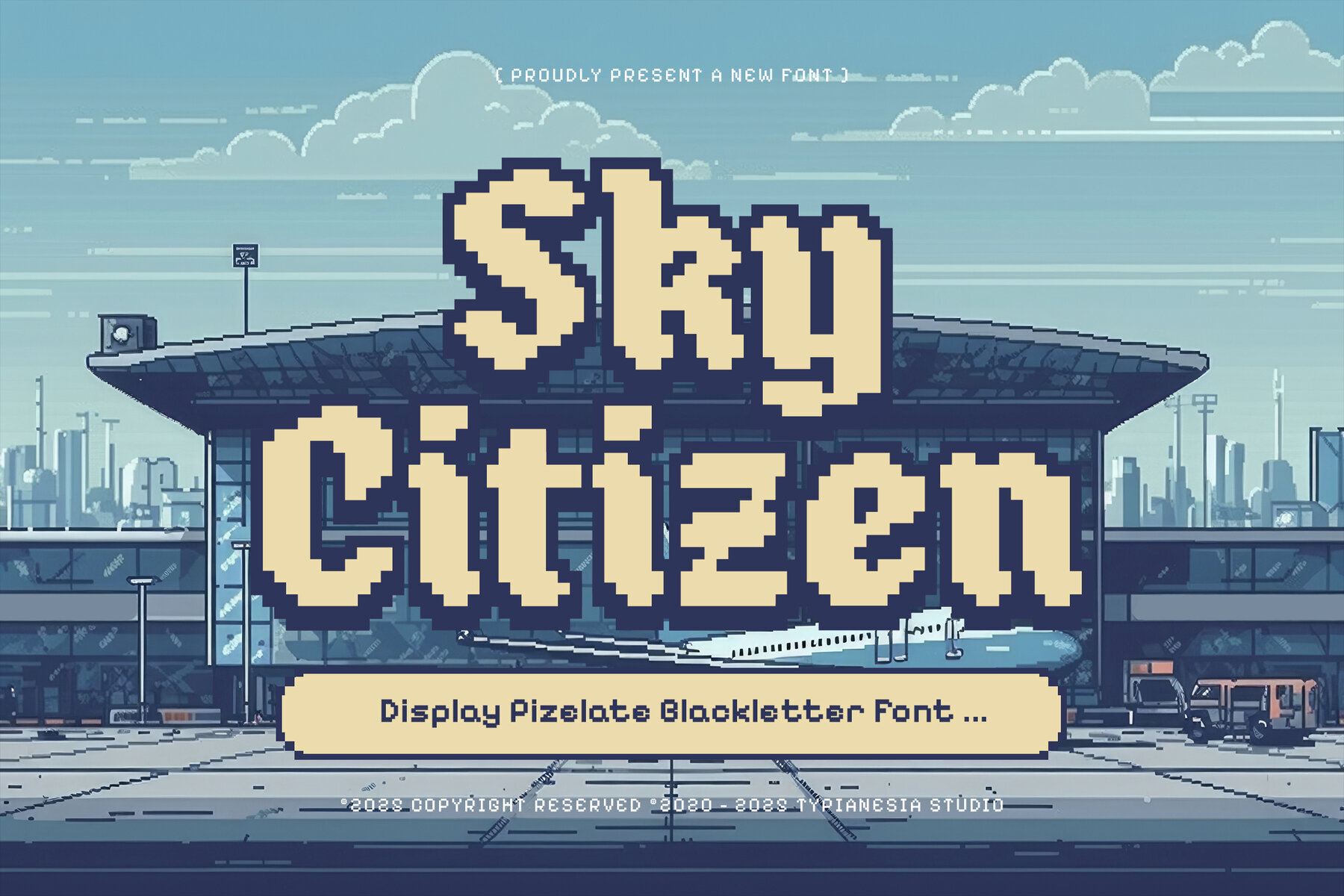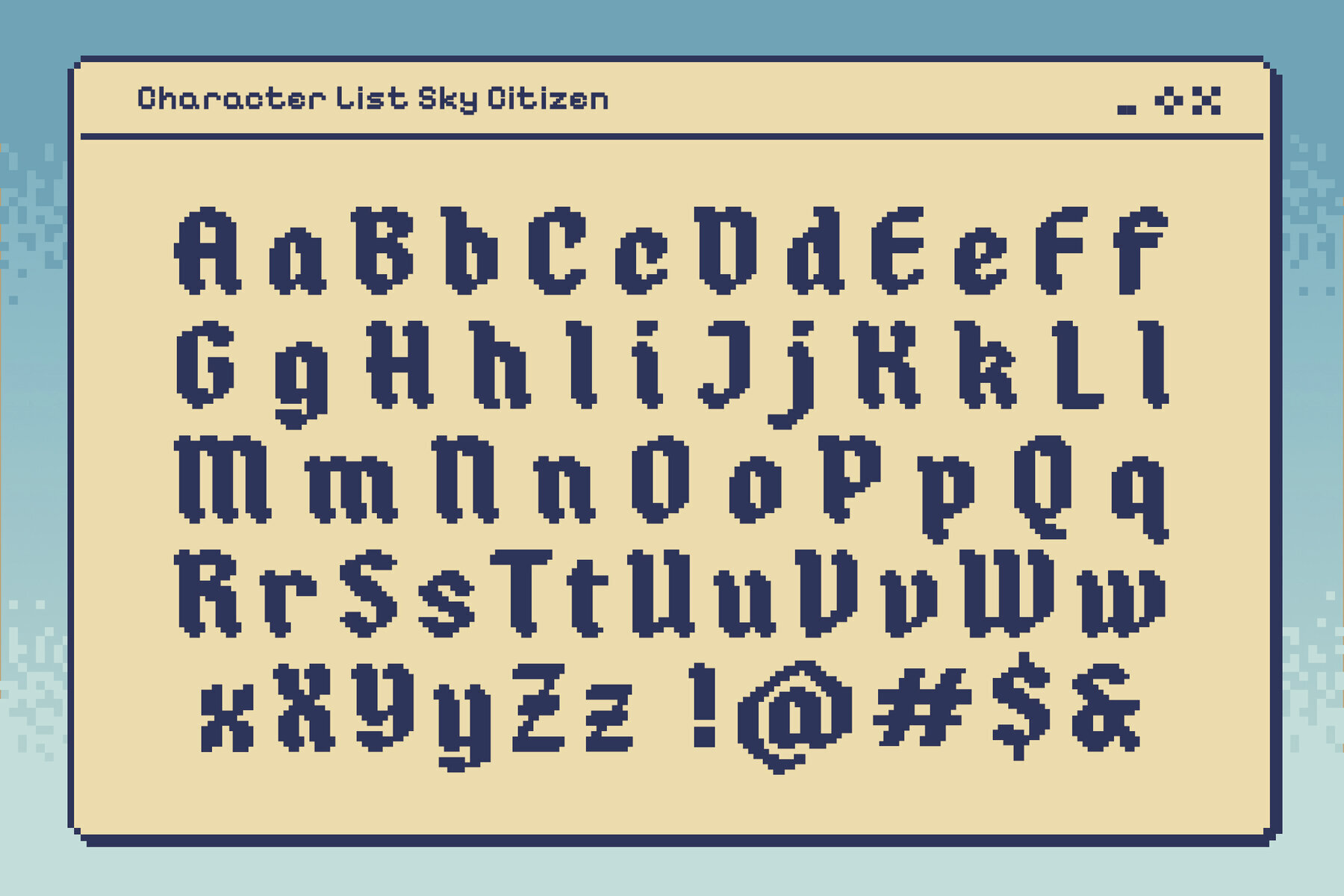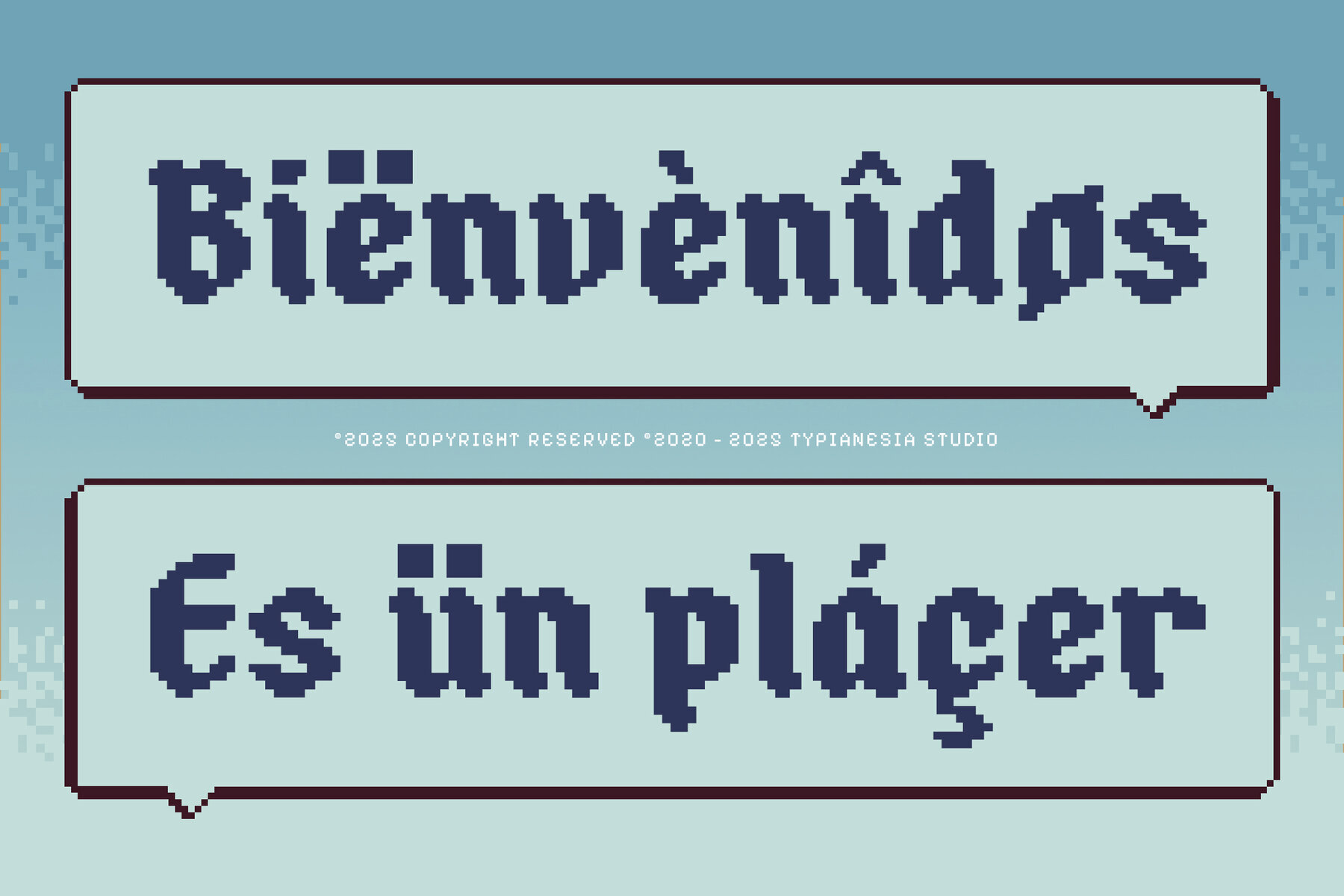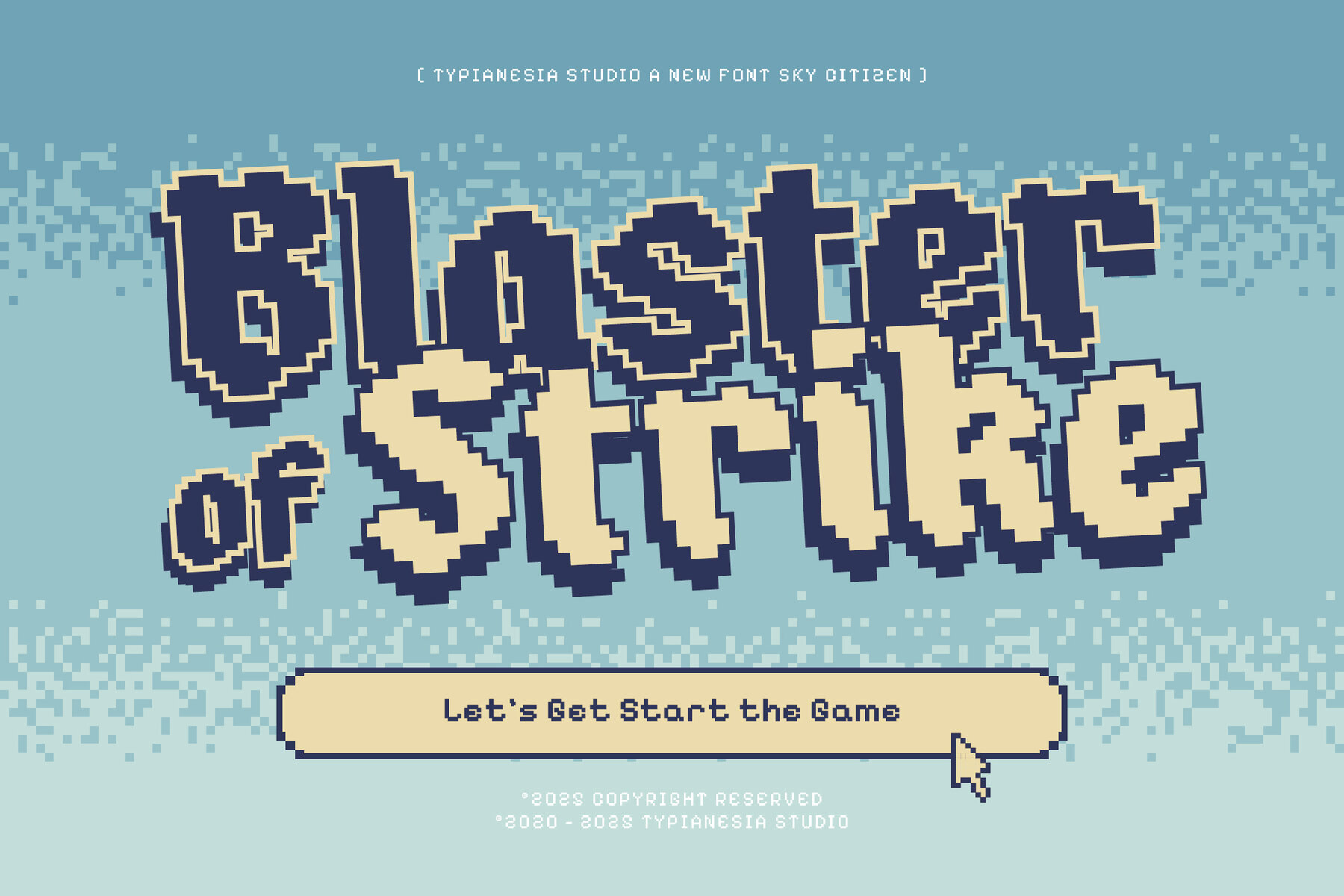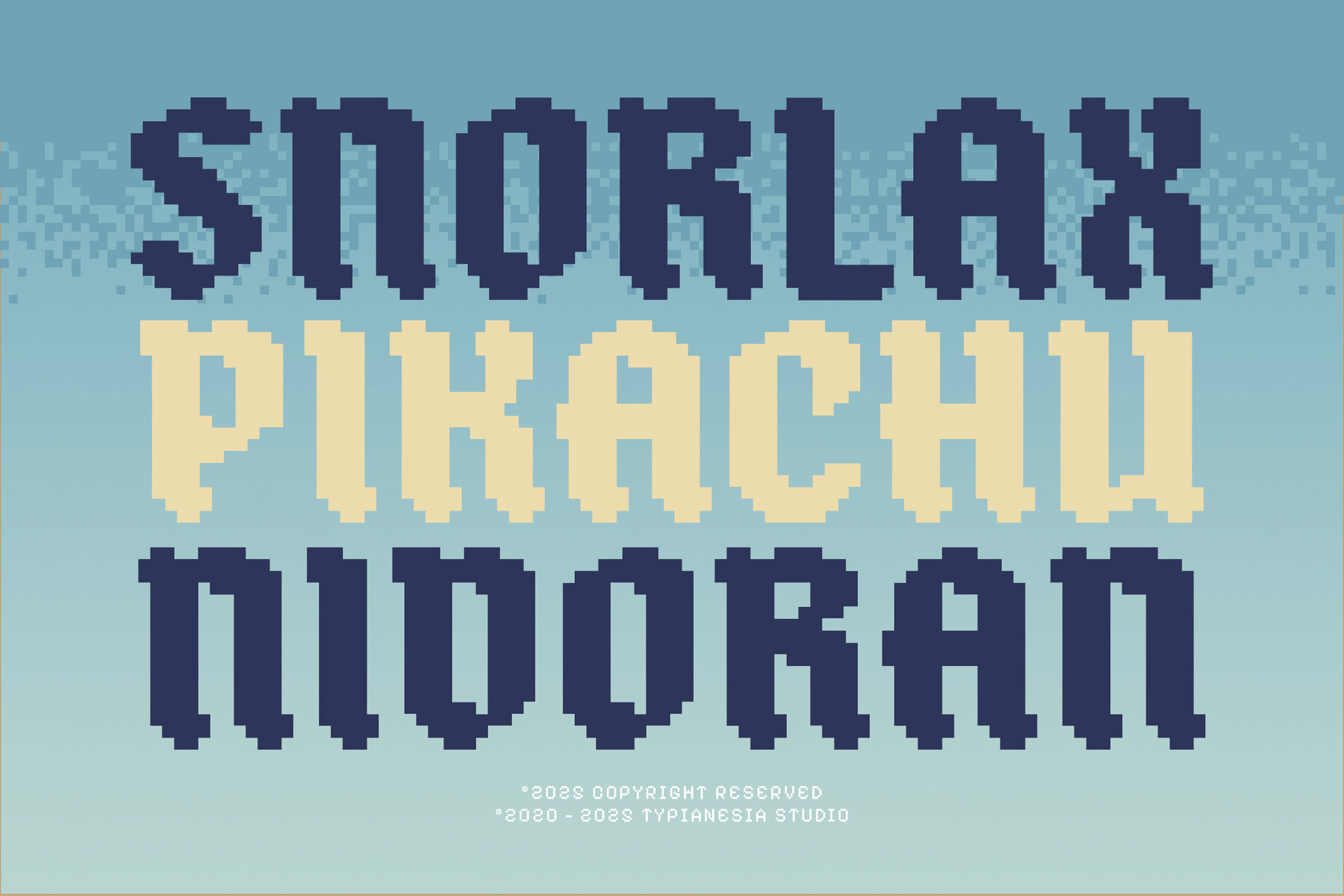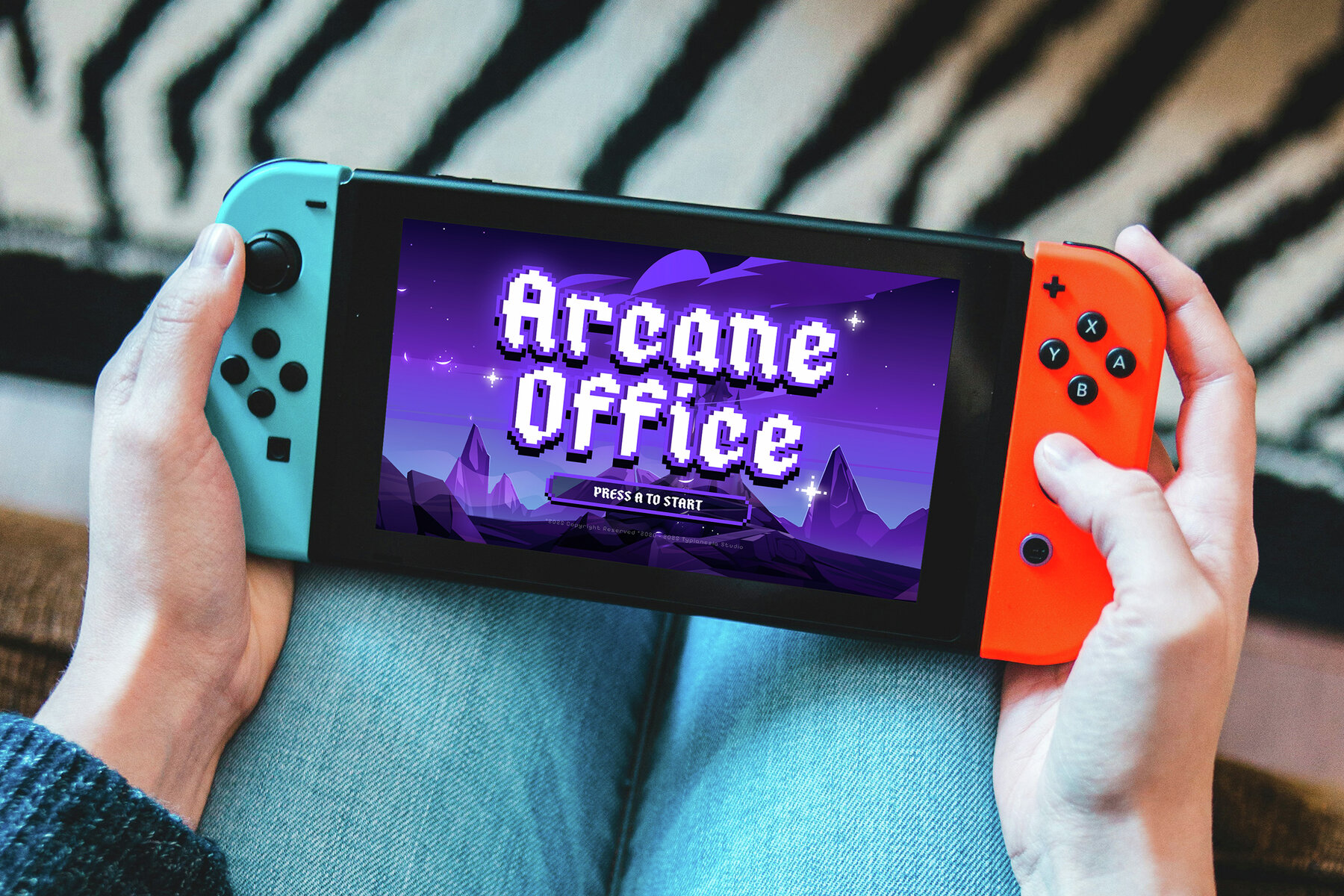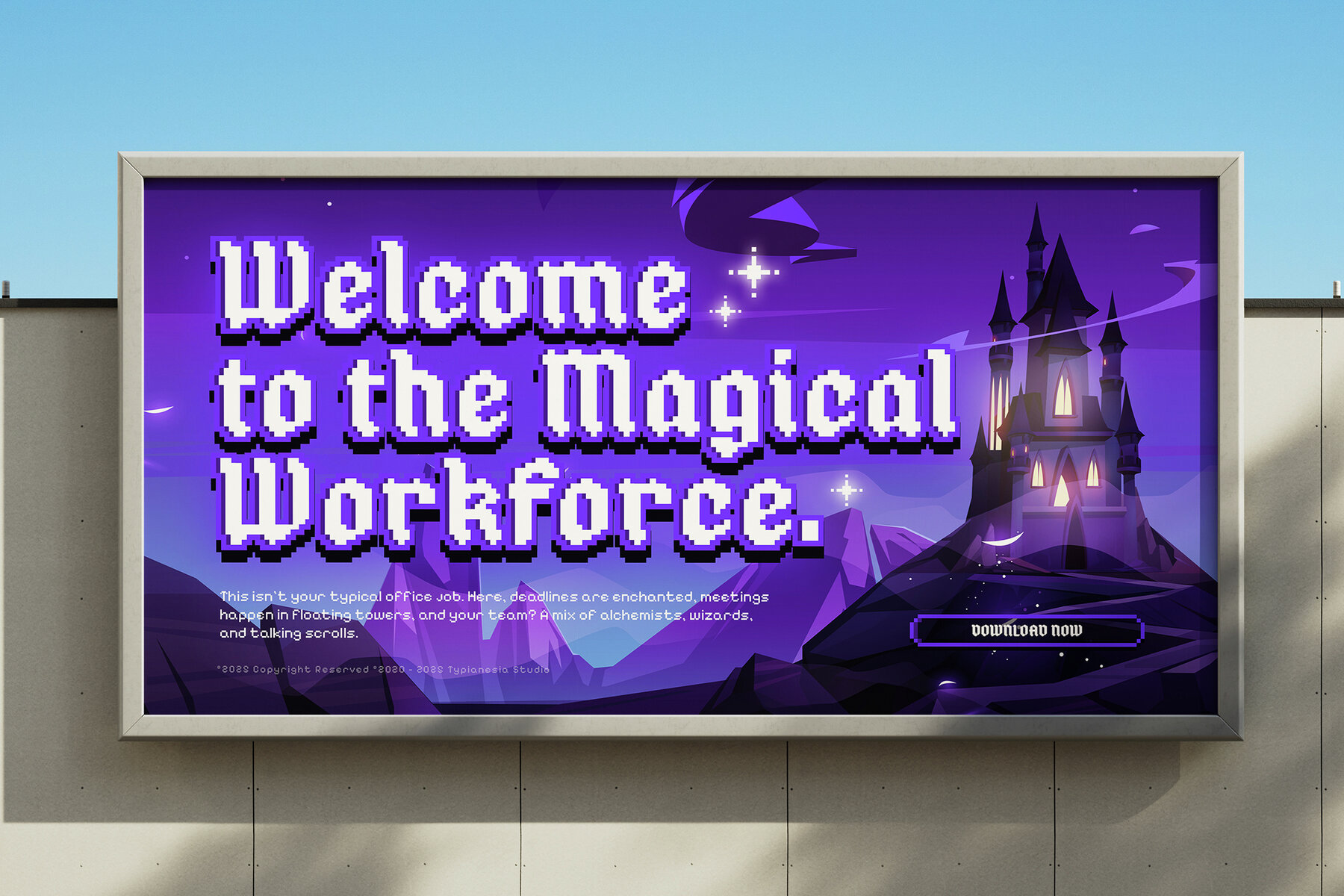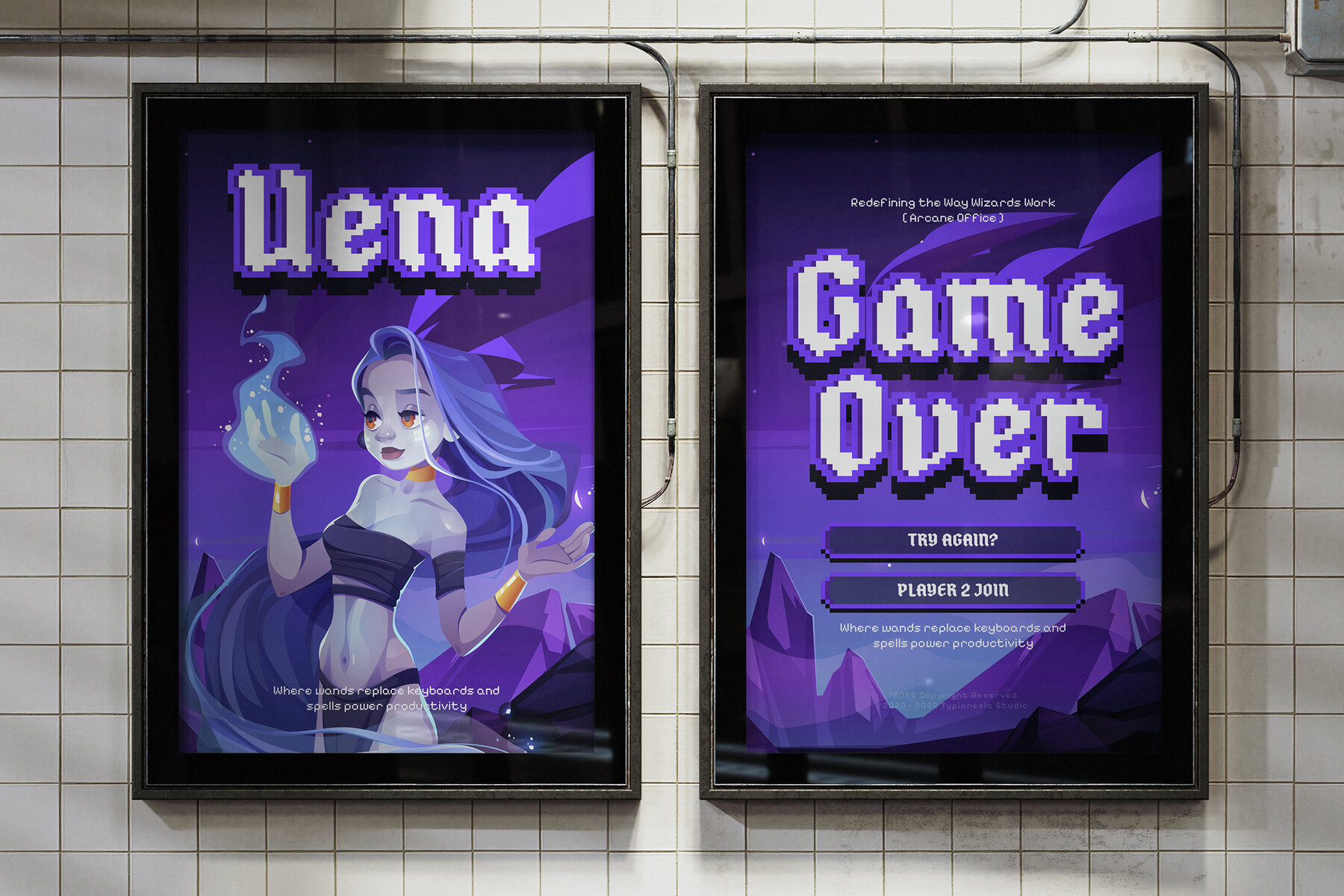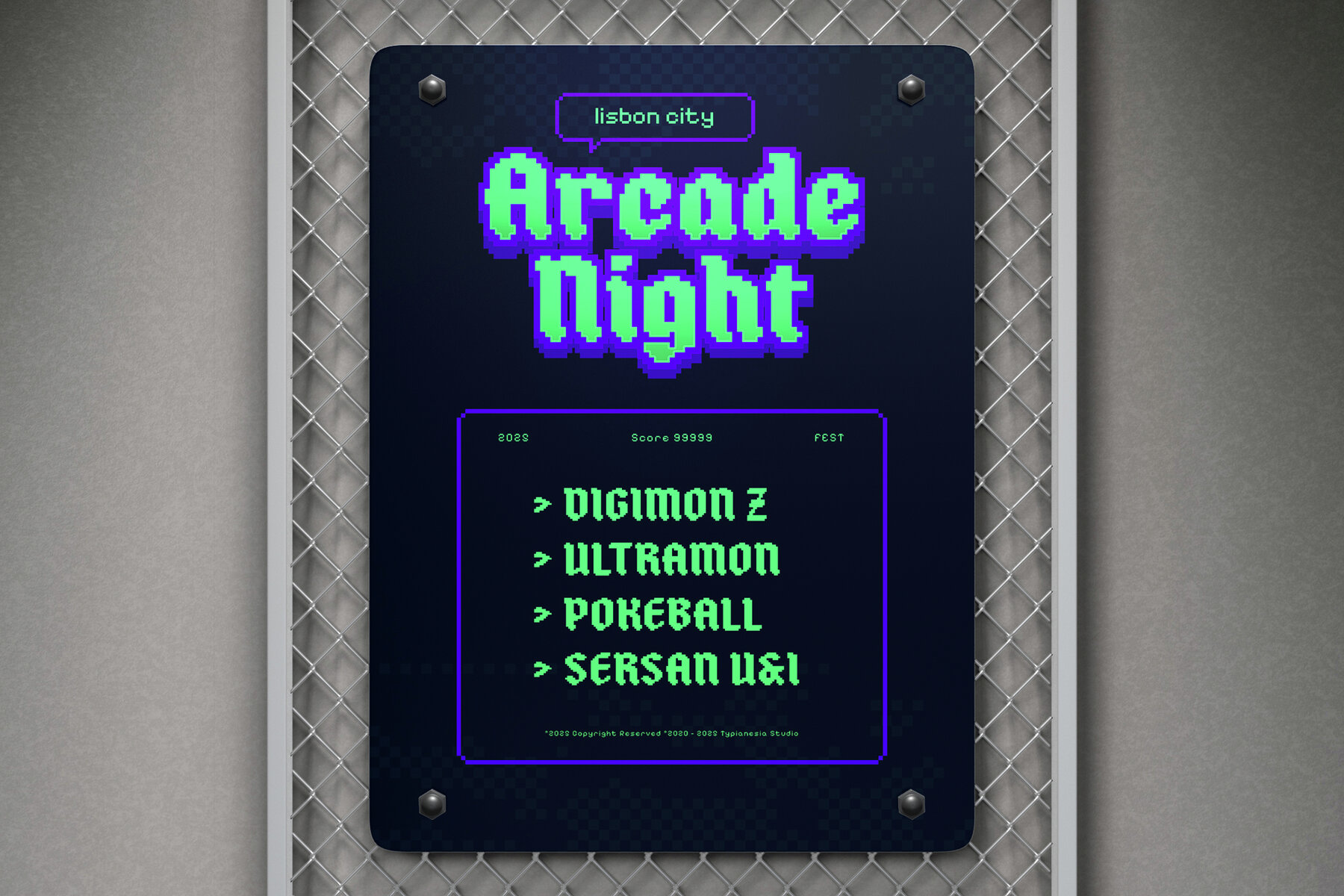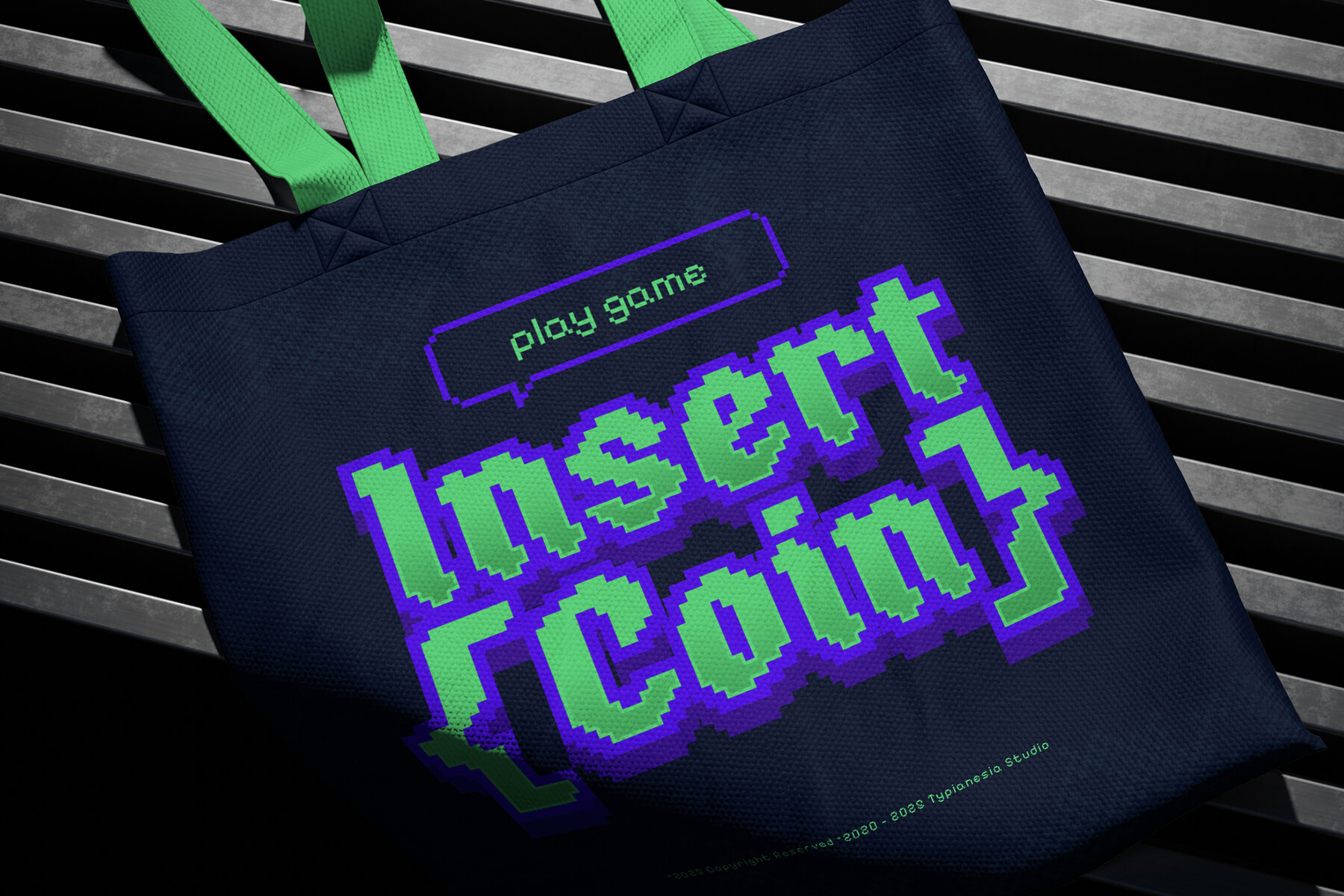
Sky Citizen Font
Sky Citizen Regular
Sky Citizen stands out as a display font that combines the stateliness of gothic design with a contemporary digital flair. The font's characters are crafted from individual blocks, resulting in a commanding all-caps typeface that boasts a striking pixelated look. This makes it an excellent choice for video game titles, streetwear branding, cyberpunk aesthetics, modern gothic designs, posters, logo creation, and headlines that demand attention. Features:Sky Citizen: Futuristic Pixelated Blackletter Font